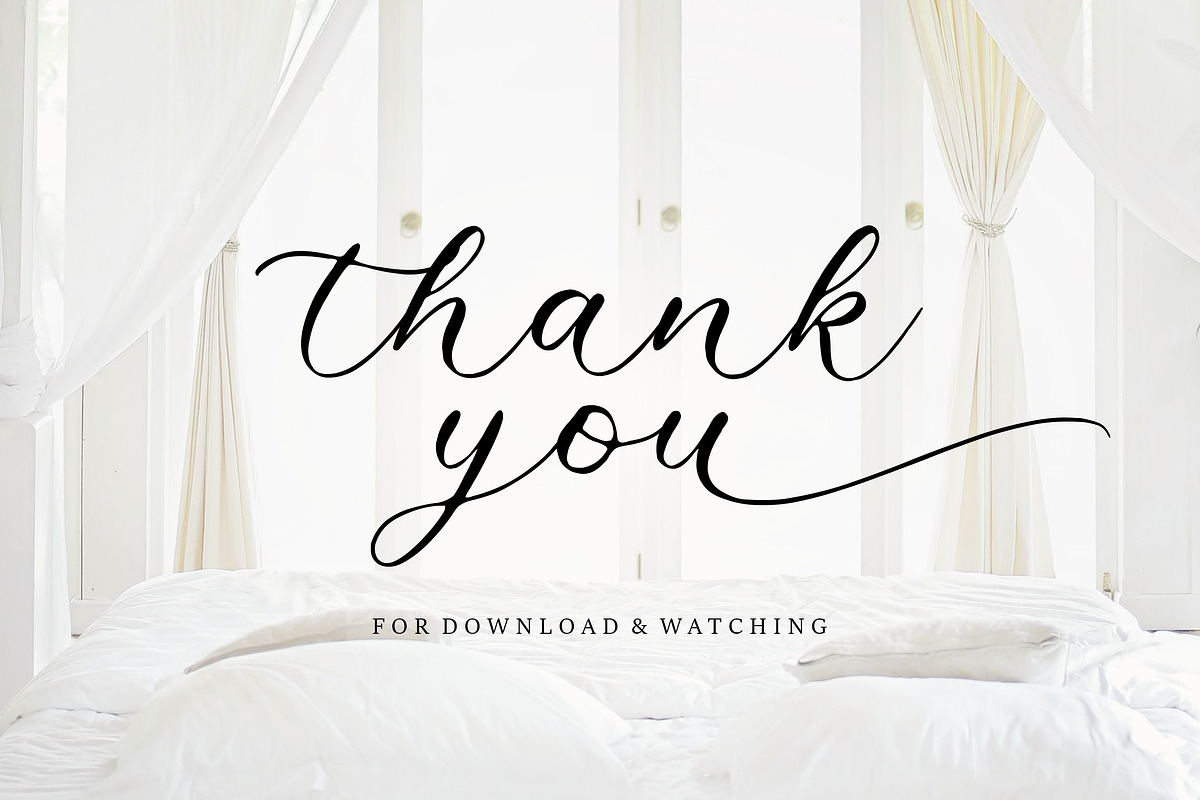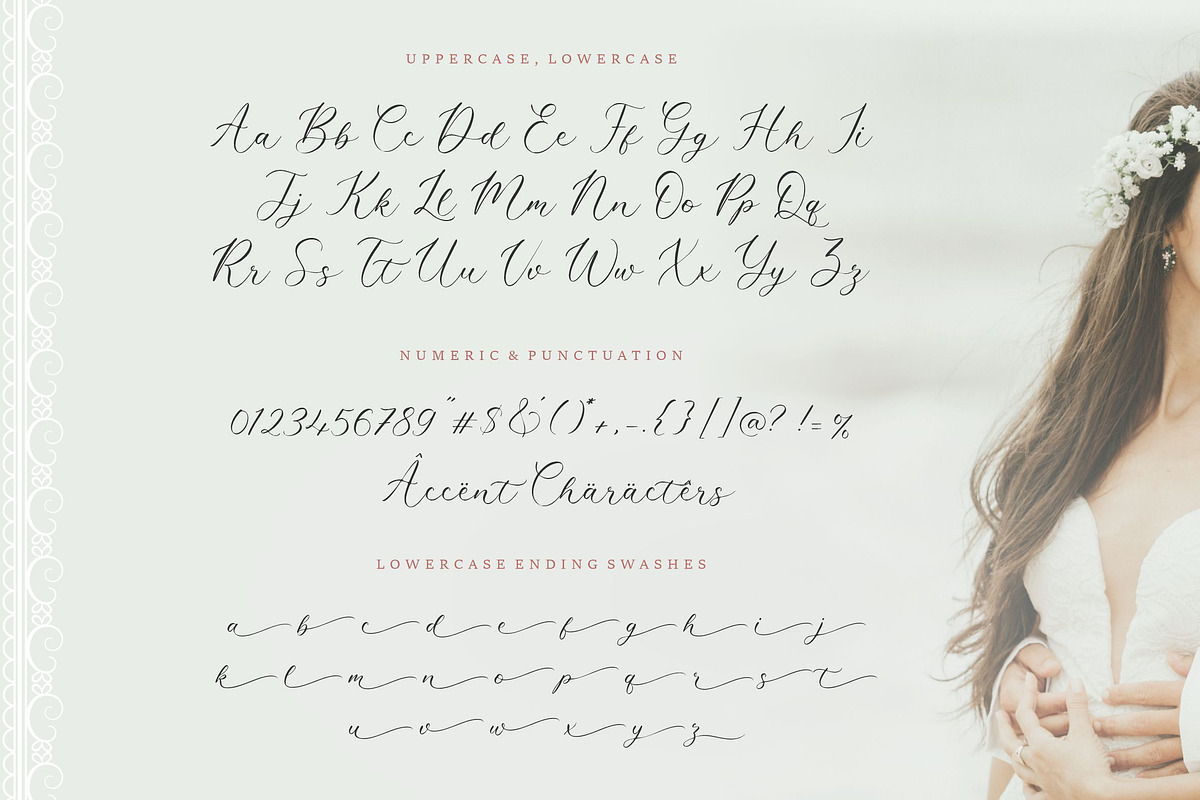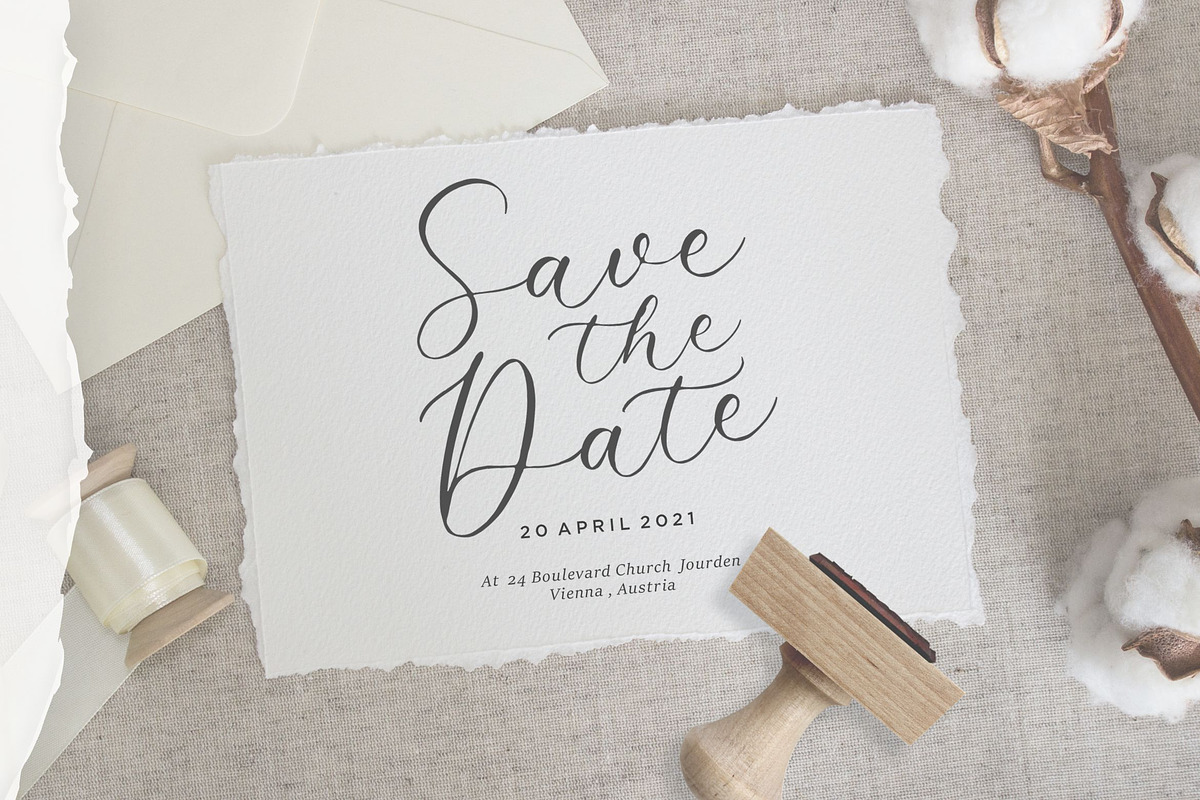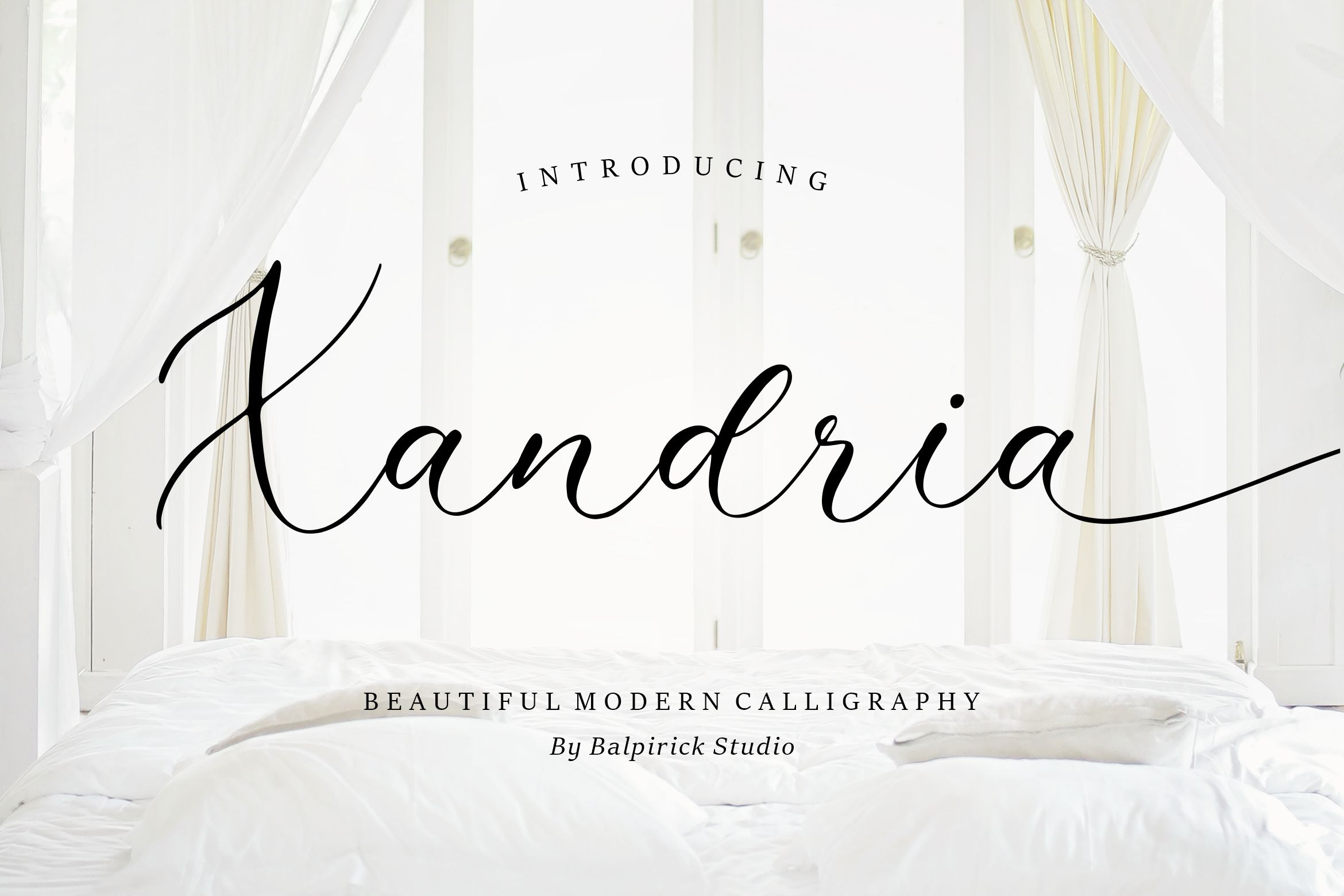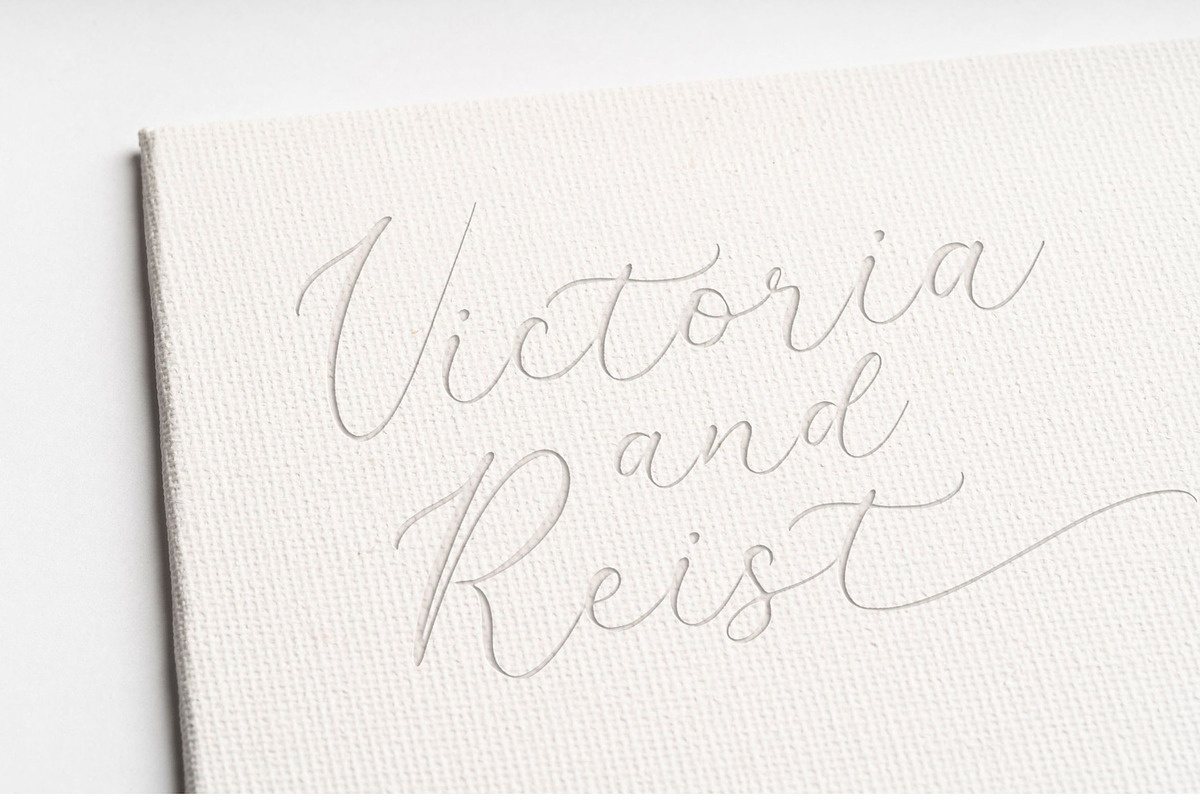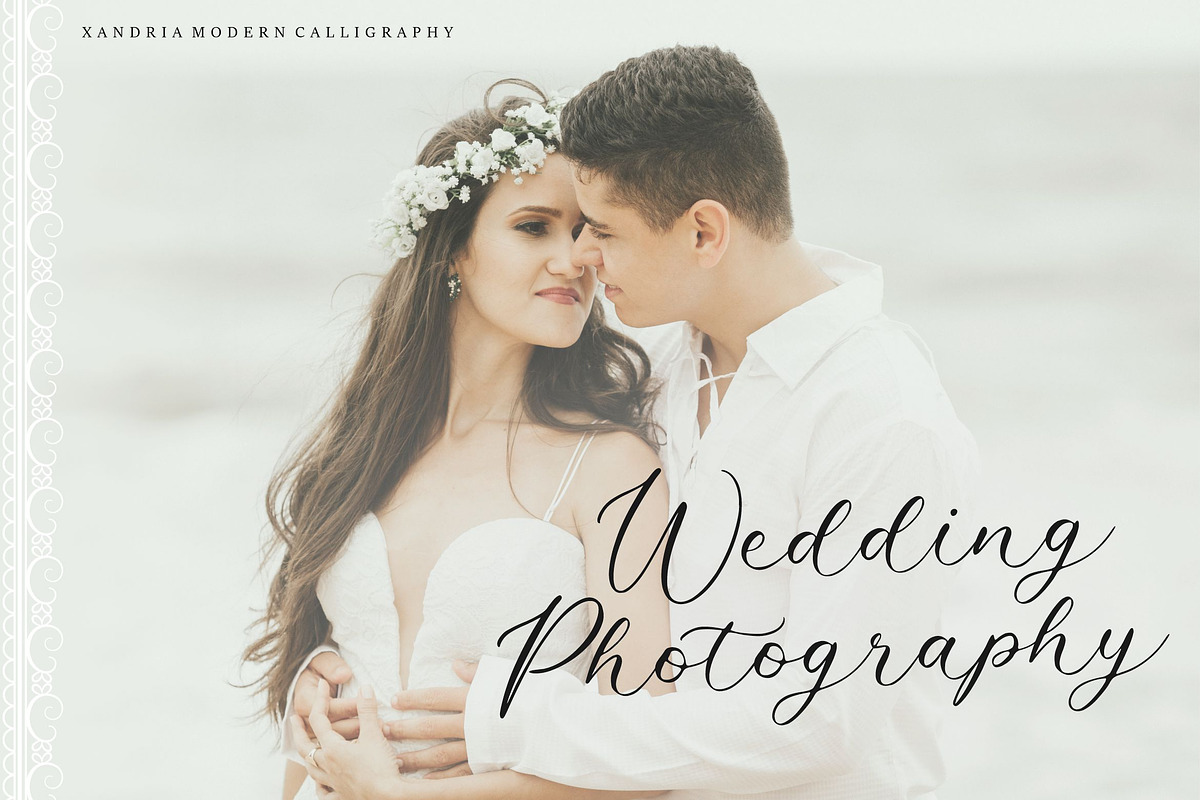
Xandria - Modern Calligraphy Font
Proudly Present, Xandria Font
Xandria is a beautiful and refined script font. It has a classy, elegant and modern look that can be used for logos, branding, invitations, stationery, wedding designs, social media posts, and much more!
- Lowercase Ending Swash